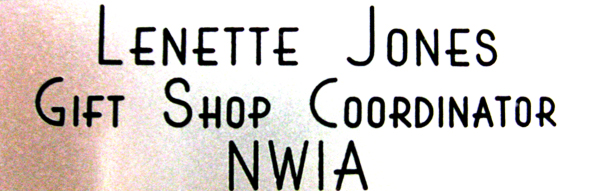
Can't figure this one out . . .
Honestly the closest thing I can find is Asia and I know thats not it !
You can start with a basic engraving or drafting font.....
and then alter the serifs...which appears to been have done
on the sample.
It looks like an engraving font called "Contemporary."
...don't know where to get it though.